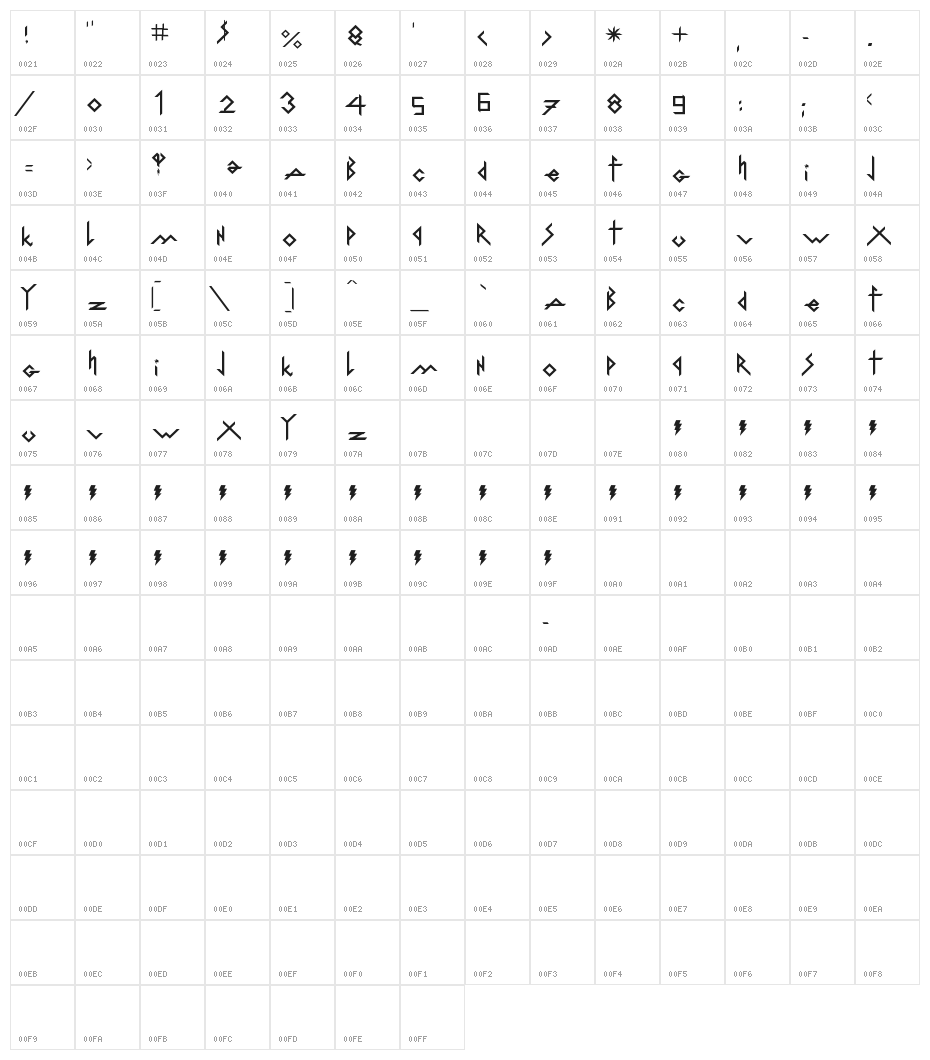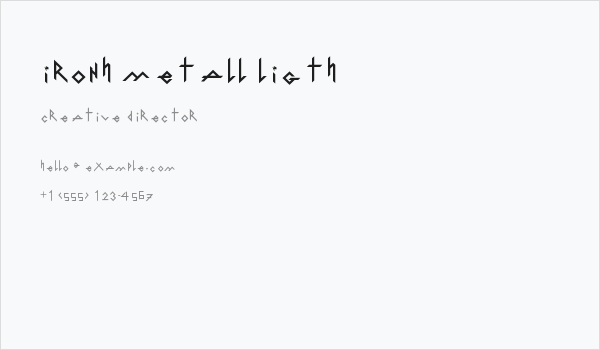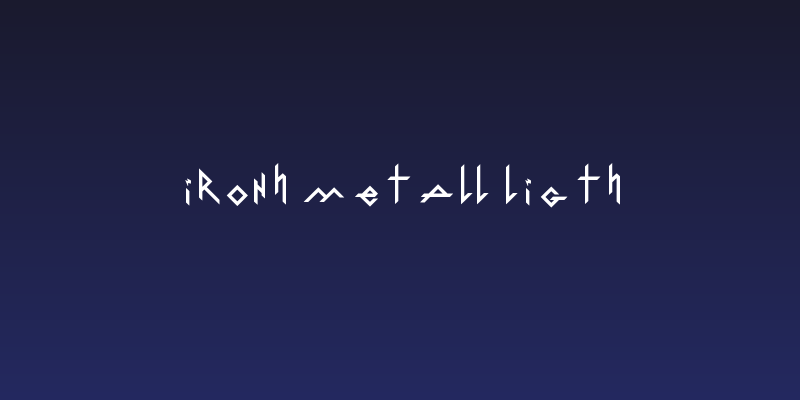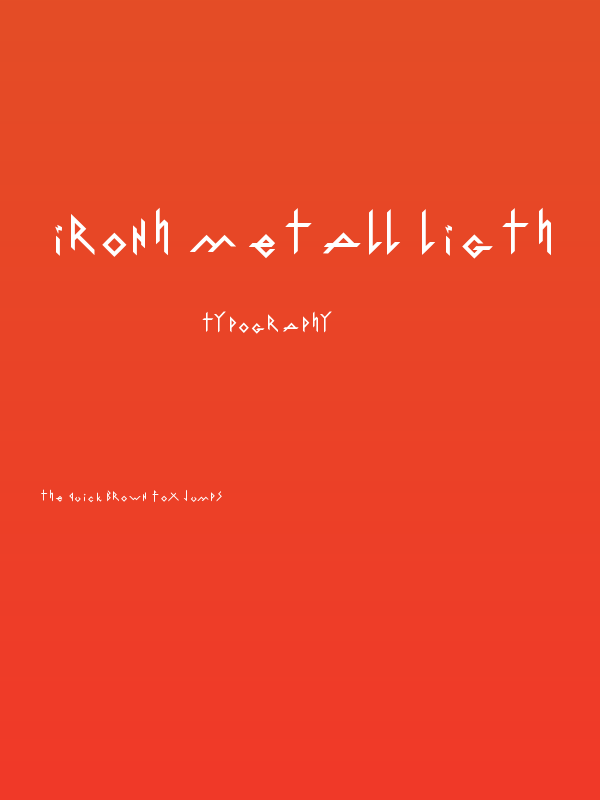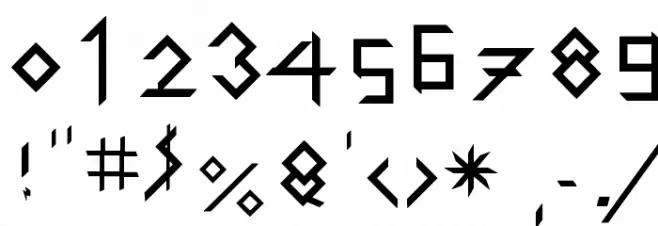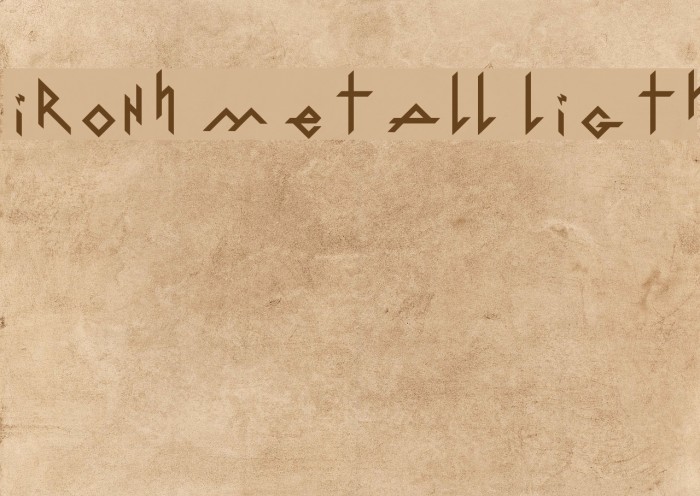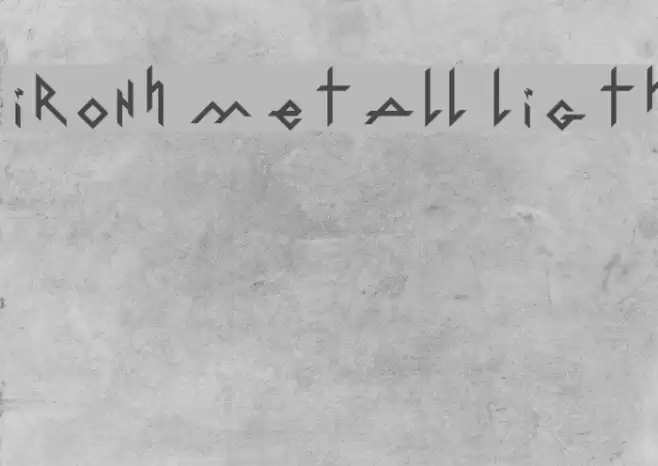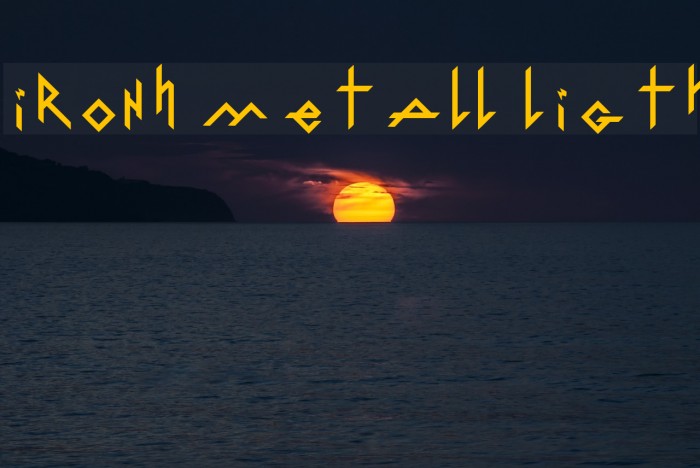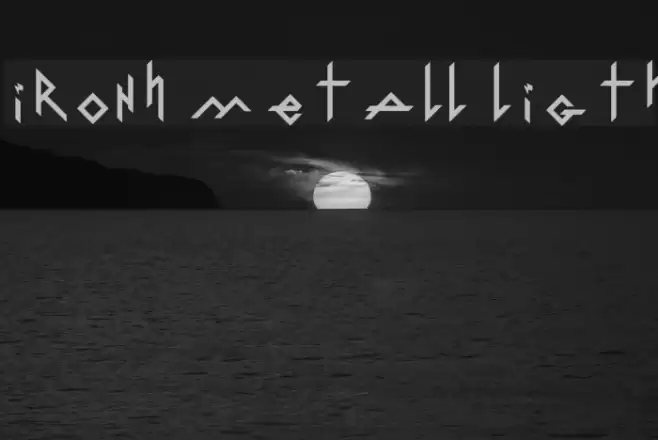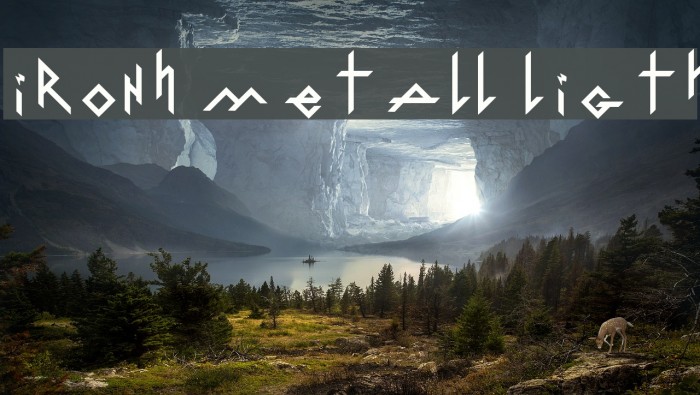
IronH Metall Ligth Font
This font features a bold, angular design with a distinctly futuristic and industrial aesthetic. The characters are composed of sharp, geometric lines and angles, giving it a mechanical and edgy appearance. The uppercase and lowercase letters maintain a consistent style, with unique, stylized forms that emphasize diagonal lines and sharp points. Numbers and special characters follow the same design principles, ensuring a cohesive look across all glyphs. This font is ideal for projects that require a modern, tech-inspired feel.
| Proposed Projects | Ideal for sci-fi themed posters, video game titles, tech branding, and industrial design projects. |